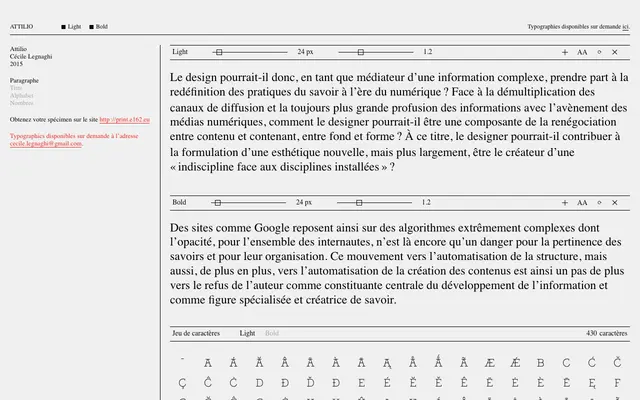
Attilio
E162 · Cécile Legnaghi · 2015
A two-weight text serif by Cécile Legnaghi, available via E162 on request with a 430-character set.
Designed by Cécile Legnaghi and released in 2015, Attilio offers Light and Bold weights across a 430-character Latin set. The typeface is distributed by E162 on request rather than through direct purchase, with specimens available via a dedicated print site. The two-weight structure suits sustained reading in editorial and publication contexts.
The specimen text and general character suggest a traditional serif design suited to extended reading; the two-weight offering with Light and Bold variants points to a text-focused transitional or humanist serif classification.